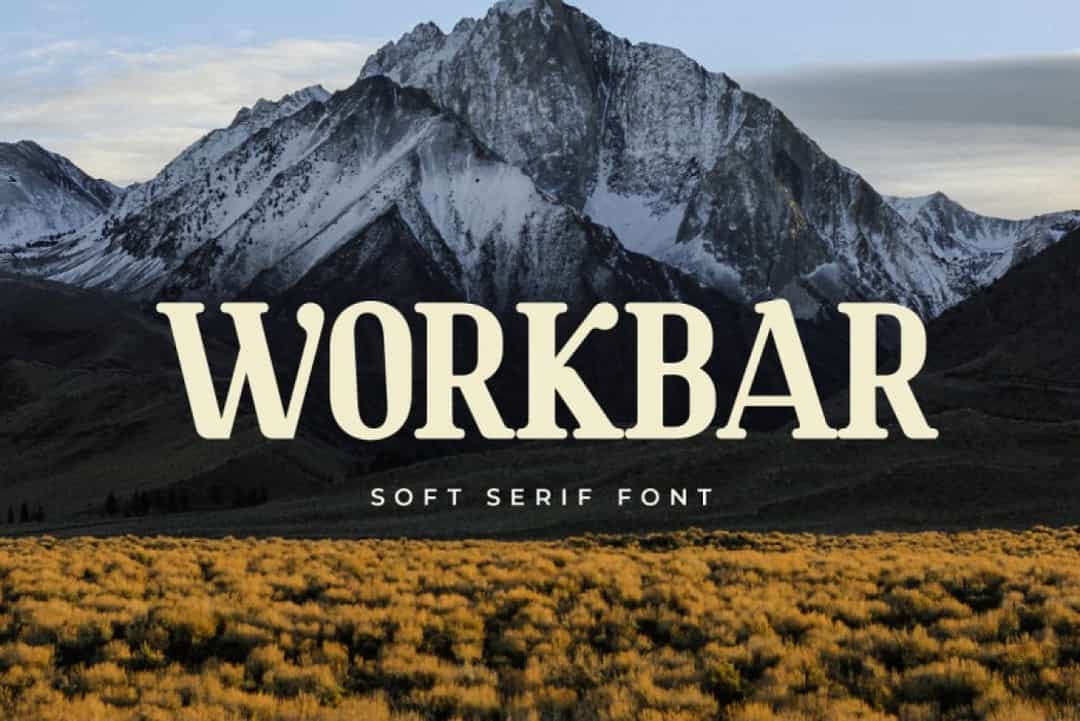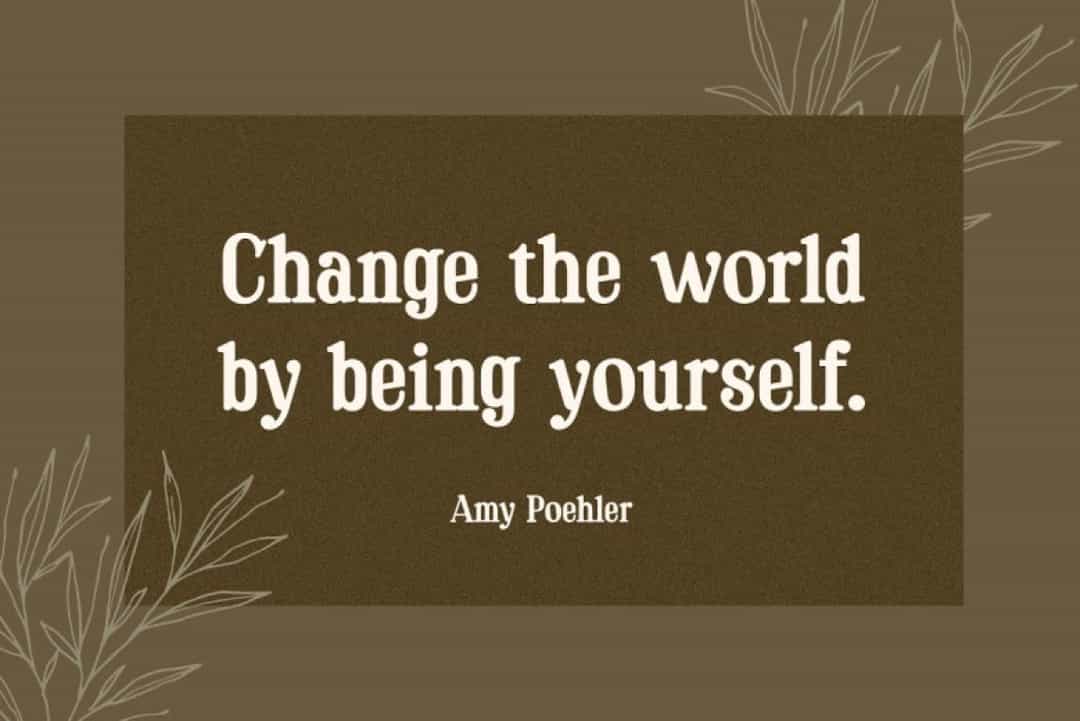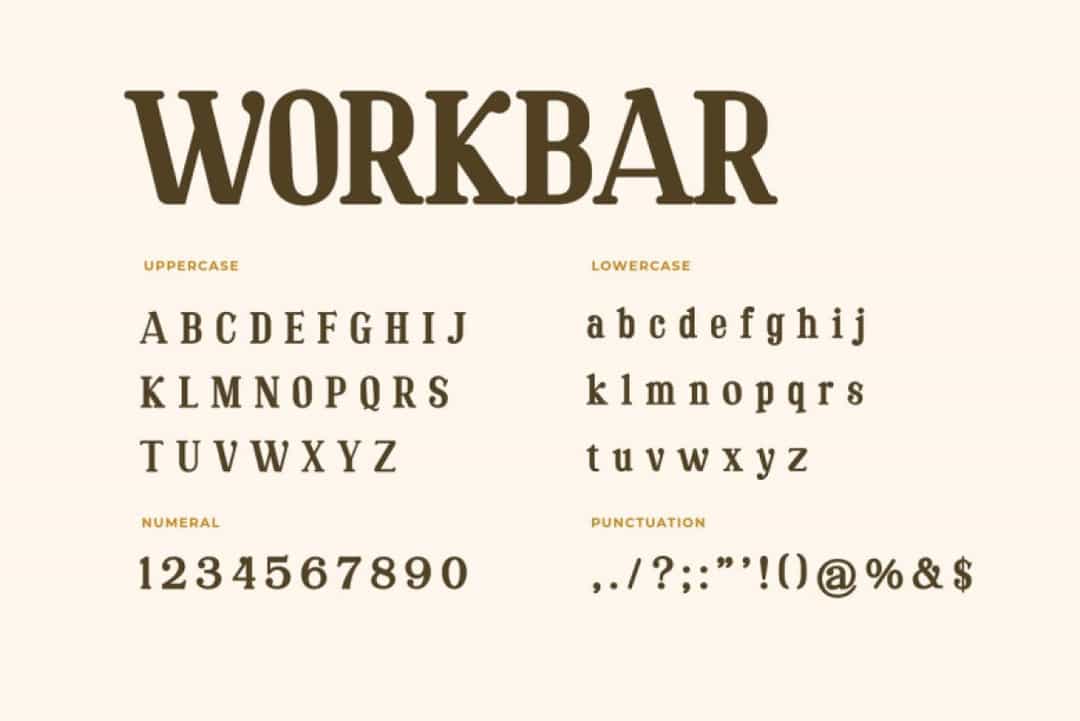
Discover Workbar Font, part of the Serif collection—a versatile and unique font perfect for adding a personal touch to your projects. Download it for free and enjoy crafting designs with style, from invitations to social media posts. This font is available exclusively for personal use, giving you the freedom to create without limits. Unlock your creativity with Workbar Font today!
Workbar Serif Font is one of the more recognizable caps fonts available and makes an impactful statement about fashion or editorial designs, exhibiting feminine and masculine qualities simultaneously. Ideal for logo & Label design, apparel design advertising T-shirt printing brochure printing etc… It makes a perfect fit!